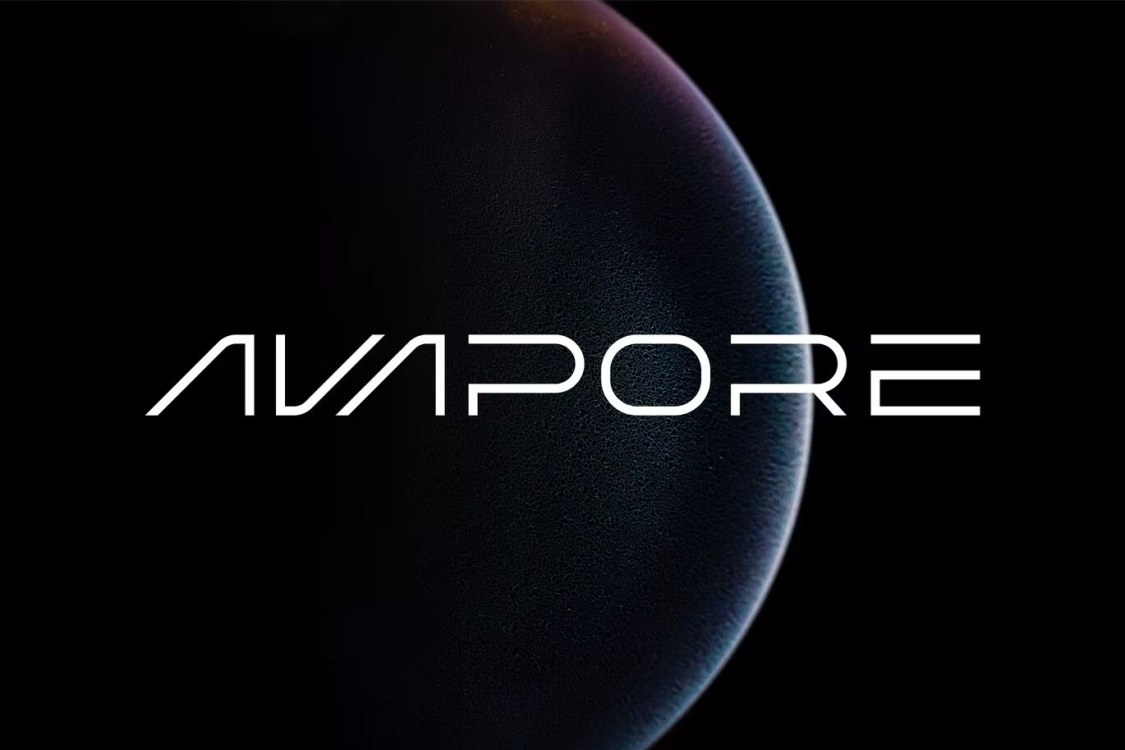
Avapore Technology Font
Avapore is a display font that is a wide, contemporary sans serif typeface that was conceived as a branding and editorial solution. This Font was designed as a versatile and flexible that can be used on a range of projects and mediums.
Avapore Technology Font is a Display Fonts font that brings a professional and versatile look to your projects. Avapore is a display font that is a wide, contemporary sans serif typeface that was conceived as a branding and editorial solution.